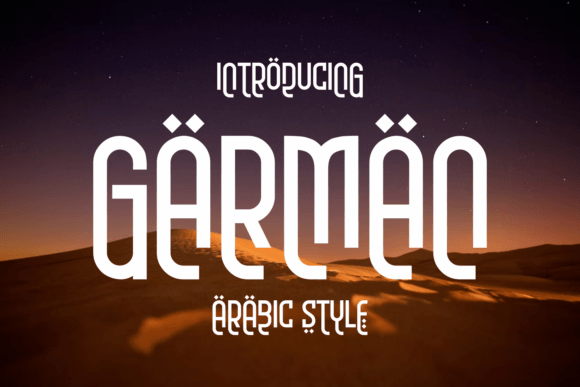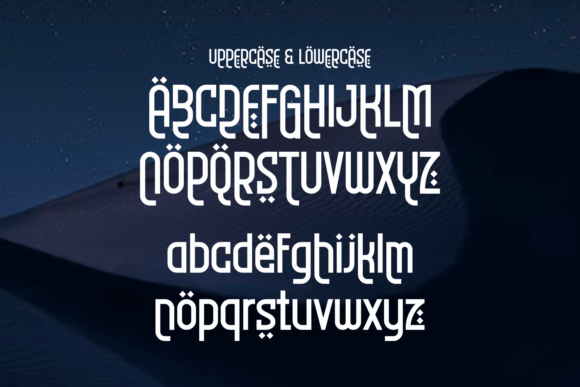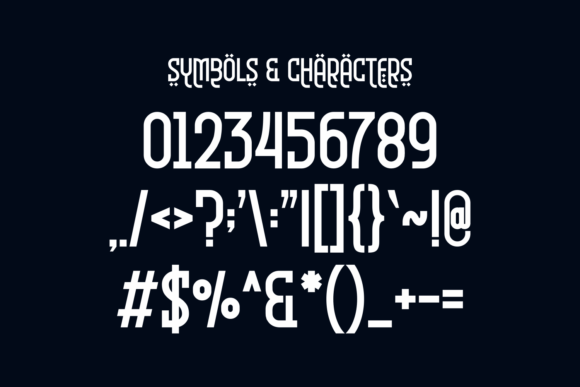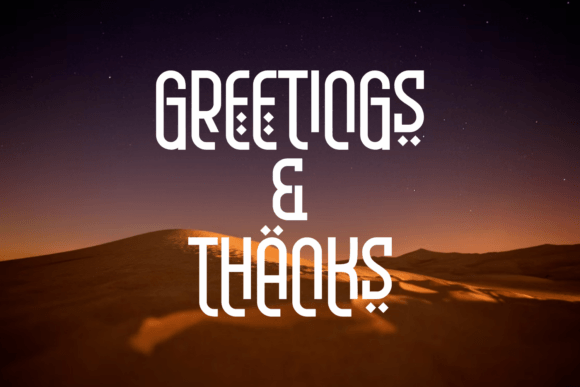
Introducing Garman Font: A Timeless Classic for Creative Expression
Are you a designer, craftsperson, or artist looking for a font that exudes elegance, sophistication, and versatility? Look no further than Garman Font, a classic display font that has been making waves in the creative community. With its unique blend of traditional and modern elements, Garman Font is the perfect choice for a wide range of applications, from branding and advertising to art and design.
What Makes Garman Font So Special?
Garman Font is a masterclass in typographic design, boasting a distinctive style that is both nostalgic and contemporary. Its classic appeal makes it an excellent choice for projects that require a touch of sophistication, while its versatility ensures it can be used in a variety of contexts. Whether you’re creating a logo, poster, or social media graphic, Garman Font is sure to make a lasting impression.
Endless Possibilities with Garman Font
So, what can you do with Garman Font? The possibilities are endless! Here are just a few ideas to get you started:
- Branding: Use Garman Font to create a memorable logo or brand identity that sets your business apart.
- Name Cards: Make a lasting impression with beautifully designed name cards that feature Garman Font.
- Posters: Create eye-catching posters that showcase your artistic skills and attention to detail.
- Logos: Design a professional logo that communicates your brand’s values and mission.
- Magazine Covers: Use Garman Font to create stunning magazine covers that grab attention.
- Banners: Design vibrant banners that showcase your message and leave a lasting impression.
- T-Shirts: Create unique and stylish t-shirt designs that feature Garman Font.
- Headers: Use Garman Font to create elegant headers that add a touch of sophistication to your designs.
- Large-Scale Artwork: Push the boundaries of creativity with large-scale artwork that features Garman Font.
Why Designers and Crafters Love Garman Font
Garman Font has quickly become a favorite among designers and crafters, and for good reason. Here are just a few reasons why:
- Unique Style: Garman Font boasts a unique style that sets it apart from other fonts.
- Versatility: Use Garman Font in a variety of contexts, from digital designs to print materials.
- Elegance: Add a touch of sophistication to your designs with Garman Font’s elegant typography.
- Easy to Read: Despite its ornate style, Garman Font is surprisingly easy to read, making it perfect for body text and headlines.
Tips for Getting the Most Out of Garman Font
To get the most out of Garman Font, here are a few tips to keep in mind:
- Experiment with Colors: Try pairing Garman Font with different colors to create unique and eye-catching designs.
- Play with Sizes: Experiment with different font sizes to create visual interest and hierarchy.
- Mix and Match: Combine Garman Font with other fonts to create a unique typographic style.
- Pay Attention to Spacing: Make sure to adjust the spacing between letters and words to ensure optimal readability.
Garman Font is a timeless classic that is sure to elevate your designs to the next level. With its unique style, versatility, and elegance, it’s the perfect choice for designers, craftspersons, and artists looking to make a lasting impression. Whether you’re creating branding materials, posters, or large-scale artwork, Garman Font is the perfect tool to help you achieve your creative vision.